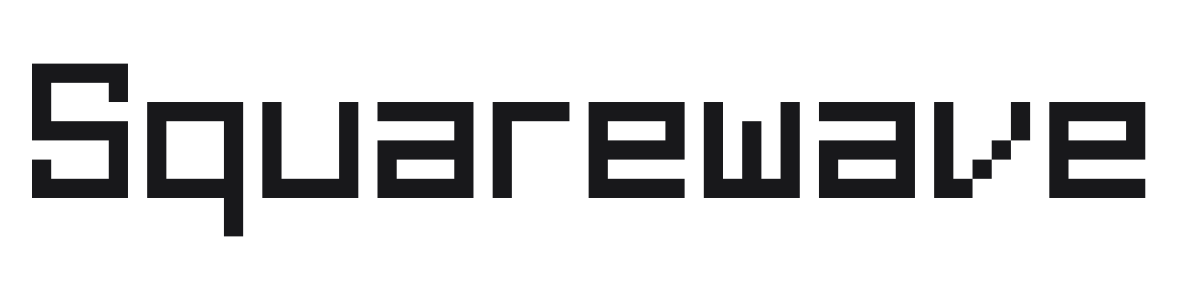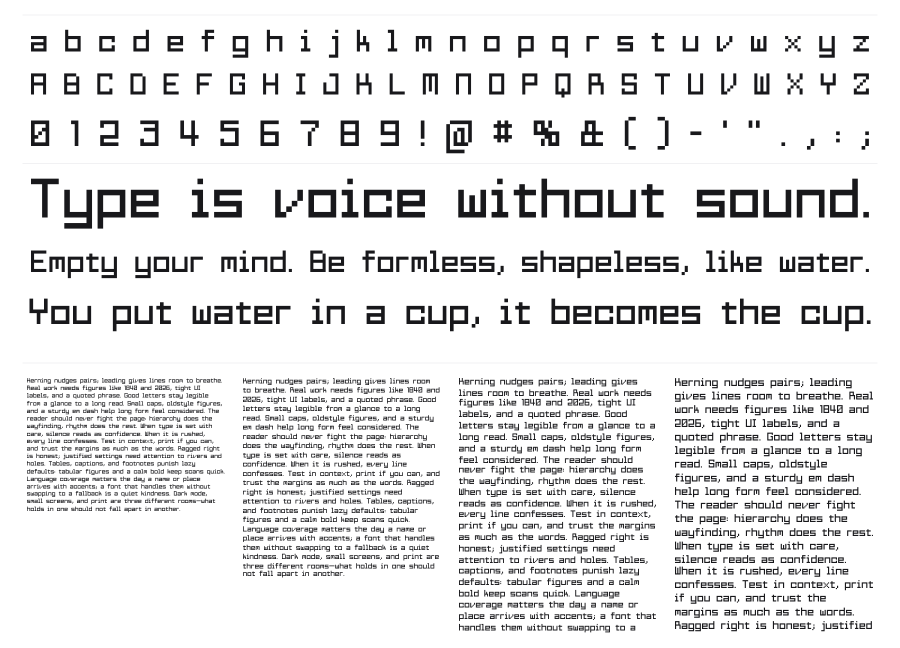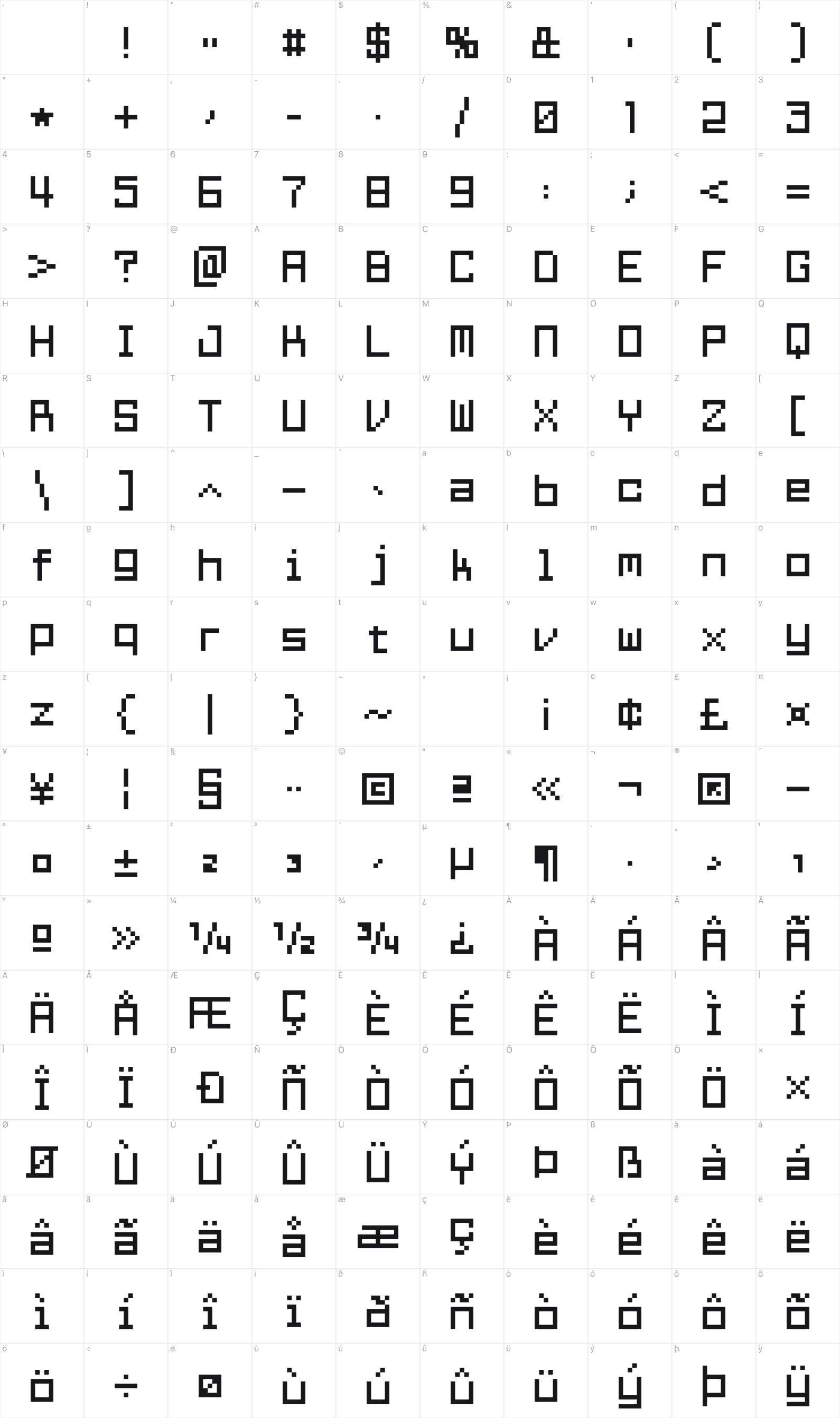
Squarewave
Squarewave is a sharp-cornered square sans-serif inspired by calculator and digital display lettering. Every stroke hits at a strict right angle, giving it an unmistakably pixelated, segmented-display quality that sits somewhere between a bitmap font and a geometric sans. It works well in tech, gaming, and retro-computing contexts where that rigid digital character is the point.